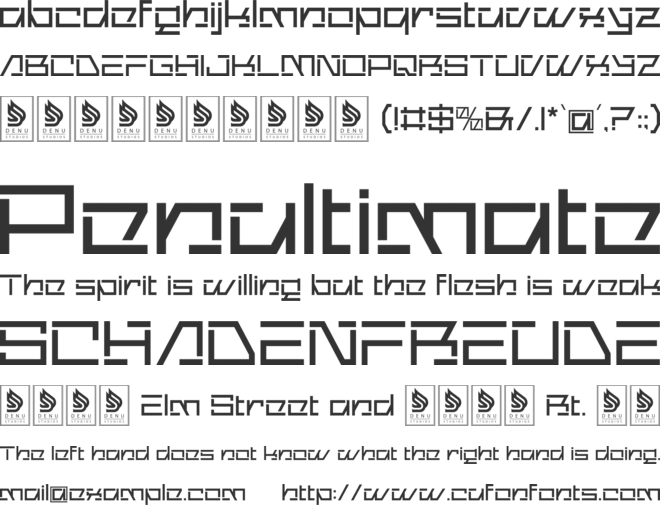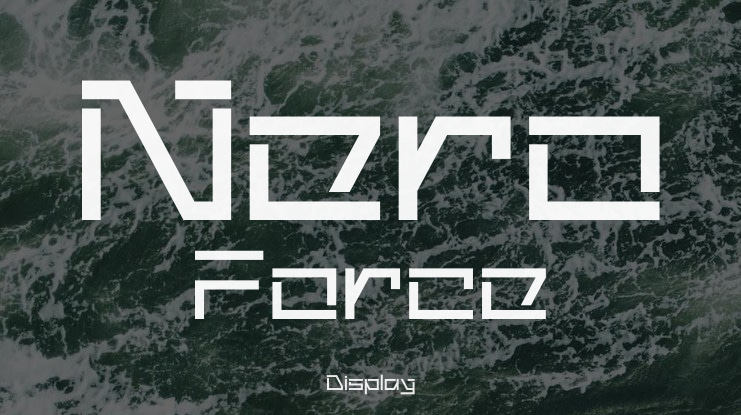
Nero Force | Modern Futuristic product packaging, mugs, quotes, posters, shopping bags, t-shirts, book covers, name card, invitation cards, greeting cards, label, photography, watermark, special events, and all your other lovely projects that need a Modern Futuristic taste.